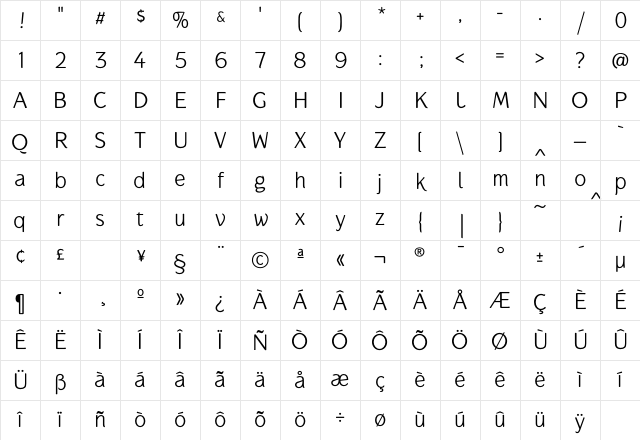
Gauntlet Classic Regular
Foundry: Dimitri Castrique
Designer: Dimitri Castrique
Design Context for Gauntlet Classic
Gauntlet Classic wears its vintage influences proudly, with letterforms that recall mid-century signage, classic packaging, and nostalgia-driven design.
Font Pairing: Combine Gauntlet Classic with a simple slab or neutral sans - period-accurate companions reinforce the vintage feel without competing for attention.
Pro Tip: Lean into Gauntlet Classic's period character by pairing it with aged paper textures, muted colour palettes, and vintage illustration styles.